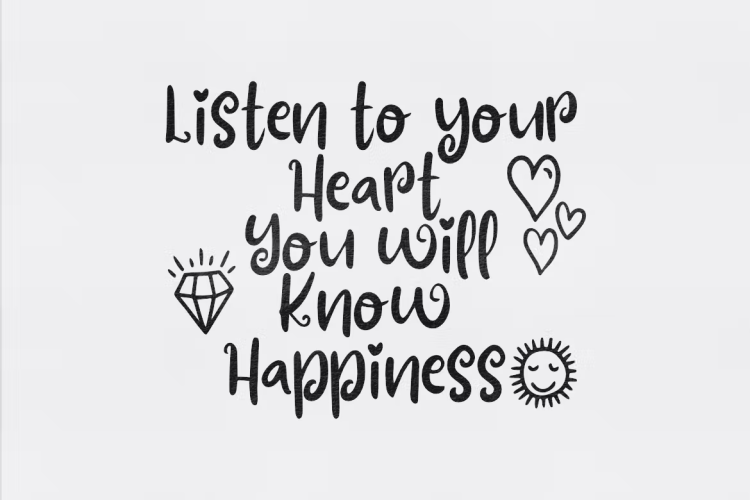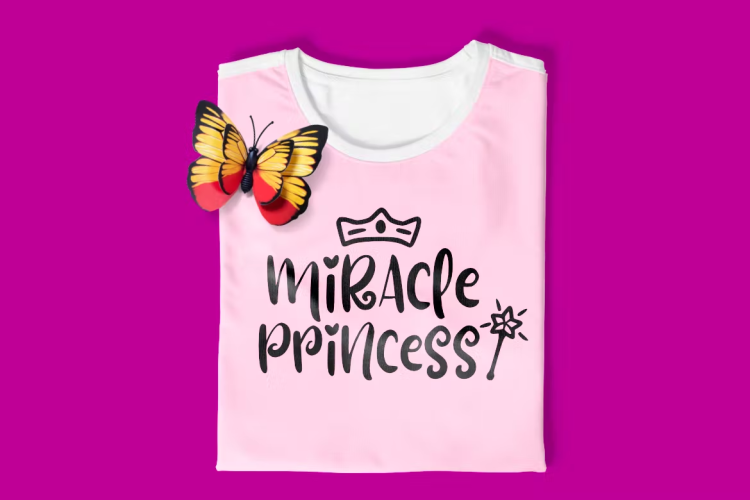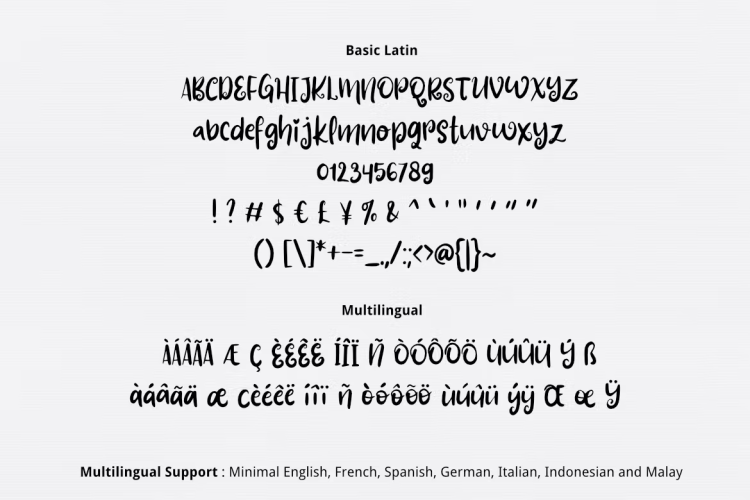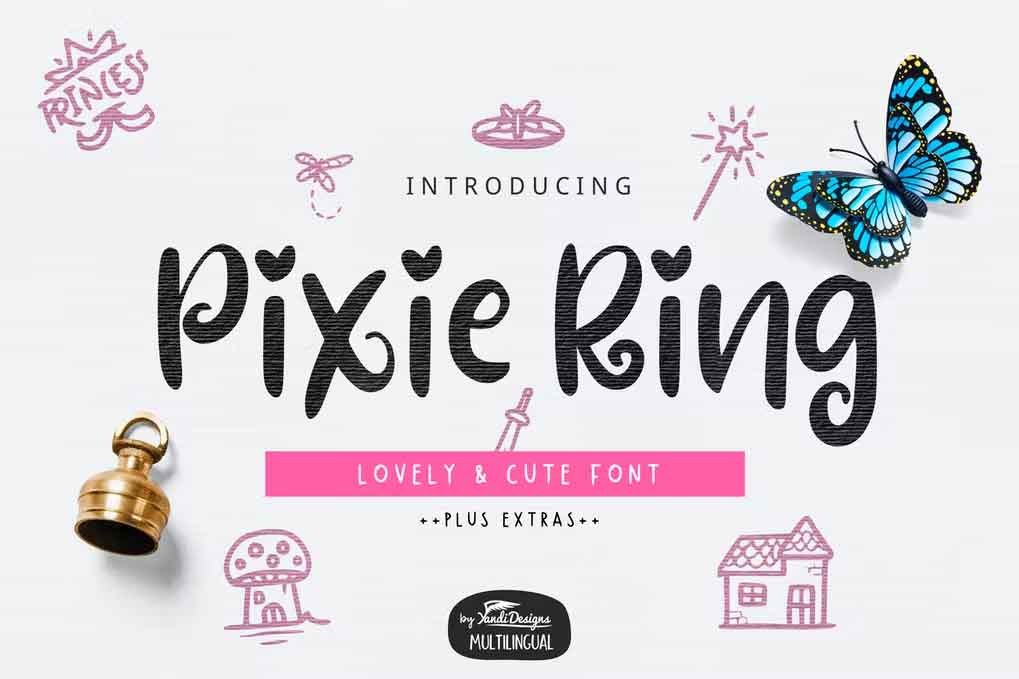
Pixie Ring Font
Pixie Ring Font with dingbat Illustration Simple lovely cute font , suitable for many project, signature , quotes, logo , doodle, heading , title etc. What you get Unico…
Pixie Ring Font with dingbat Illustration
Simple lovely cute font , suitable for many project, signature , quotes, logo , doodle, heading , title etc.
Where Pixie Ring Font works best
Pixie Ring Font brings a personal, handwritten warmth to invitations, menus and place cards.
Craft brands — coffee, cosmetics, bakery — use scripts like Pixie Ring Font for signature-style logos and labels.
Pair Pixie Ring Font with a plain sans for quotes, stories and Pinterest pins that feel handmade.
What is Pixie Ring Font good for?
Pixie Ring Font is a Script And Handwritten typeface tagged Branding, Handwritten, Minimal, Minimalist. It works well for headlines, logos, posters, social media graphics and branding projects that need a distinctive script and handwritten look.